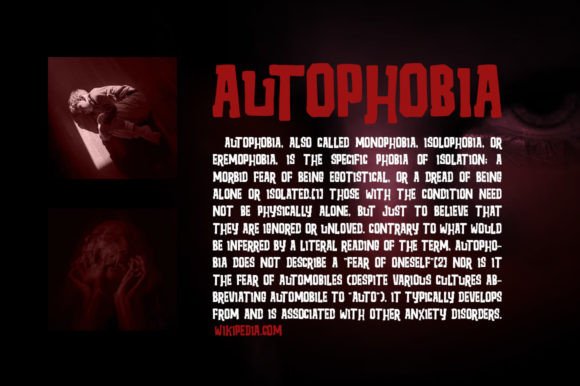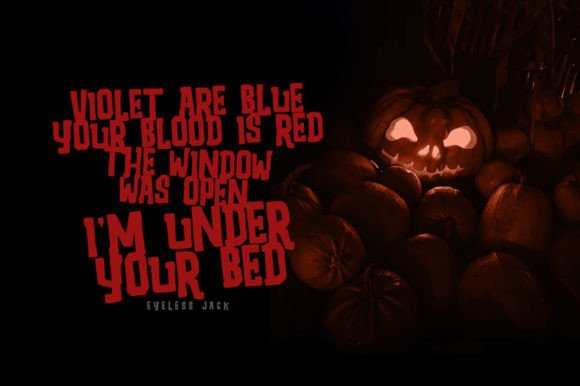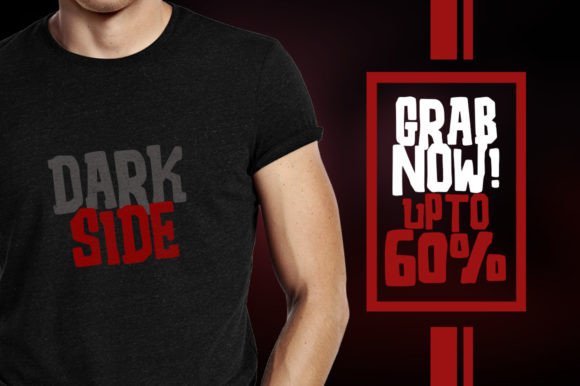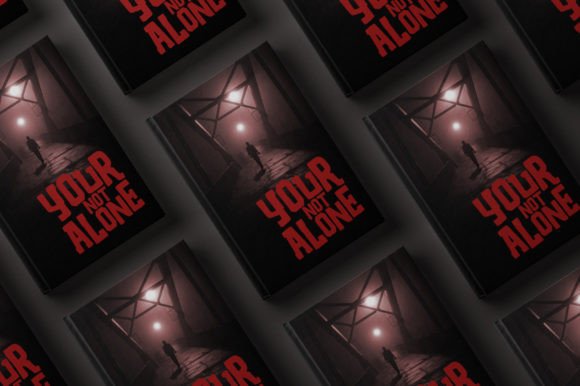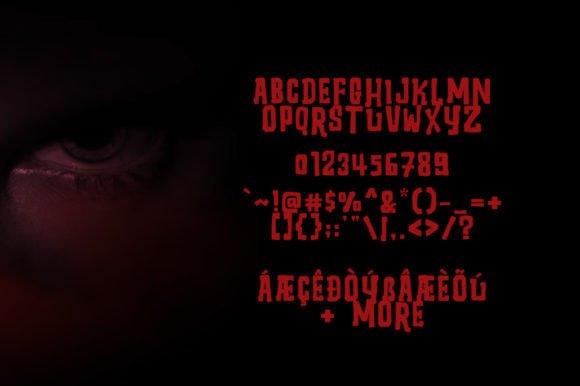
Discover the Eerie Charm of Autophobia Font: A Slab Serif Font for Horror and Halloween Designs
Are you a designer or crafter looking for a font that can add a touch of eeriness and uniqueness to your designs? Look no further than Autophobia Font, a slab serif font that is sure to captivate your audience. With its distinctive and attractive design, Autophobia Font is perfect for creating horror and Halloween-themed designs that will leave a lasting impression.
What is Autophobia Font?
Autophobia Font is a slab serif font that boasts a unique and eye-catching design. The font’s distinctive features include its bold and rugged lines, which give it a haunting and eerie feel. Despite its unusual design, Autophobia Font is surprisingly versatile and can be used in a variety of contexts, from horror and Halloween designs to more general design projects.
Characteristics of Autophobia Font
So, what makes Autophobia Font so special? Here are some of its key characteristics:
- Unique slab serif design: Autophobia Font features a distinctive slab serif design that sets it apart from other fonts.
- Bold and rugged lines: The font’s bold and rugged lines give it a haunting and eerie feel, perfect for horror and Halloween designs.
- Versatile: Despite its unusual design, Autophobia Font is surprisingly versatile and can be used in a variety of contexts.
- Easy to read: Despite its bold design, Autophobia Font is easy to read, making it perfect for use in body text and headlines.
Uses for Autophobia Font
So, what can you use Autophobia Font for? Here are some ideas to get you started:
- Horror and Halloween designs: Autophobia Font is perfect for creating horror and Halloween-themed designs, from posters and flyers to social media graphics and more.
- Body text and headlines: The font’s bold design and easy readability make it perfect for use in body text and headlines.
- Branding and logos: Autophobia Font can be used to create unique and eye-catching branding and logos that will help your business stand out.
- Digital and print designs: Autophobia Font can be used in both digital and print designs, from social media graphics to posters and flyers.
Tips for Using Autophobia Font
Here are some tips for using Autophobia Font in your designs:
- Experiment with different colors: Autophobia Font looks great in a variety of colors, so don’t be afraid to experiment and find the perfect color scheme for your design.
- Use it sparingly: While Autophobia Font is a great font, it can be overwhelming if used too much. Use it sparingly to create emphasis and add visual interest to your design.
- Pair it with other fonts: Autophobia Font can be paired with other fonts to create a unique and eye-catching design.
In conclusion, Autophobia Font is a unique and attractive slab serif font that is perfect for horror and Halloween designs. With its bold and rugged lines, Autophobia Font is sure to captivate your audience and add a touch of eeriness to your designs. Whether you’re a designer or crafter, Autophobia Font is a great addition to your font collection.